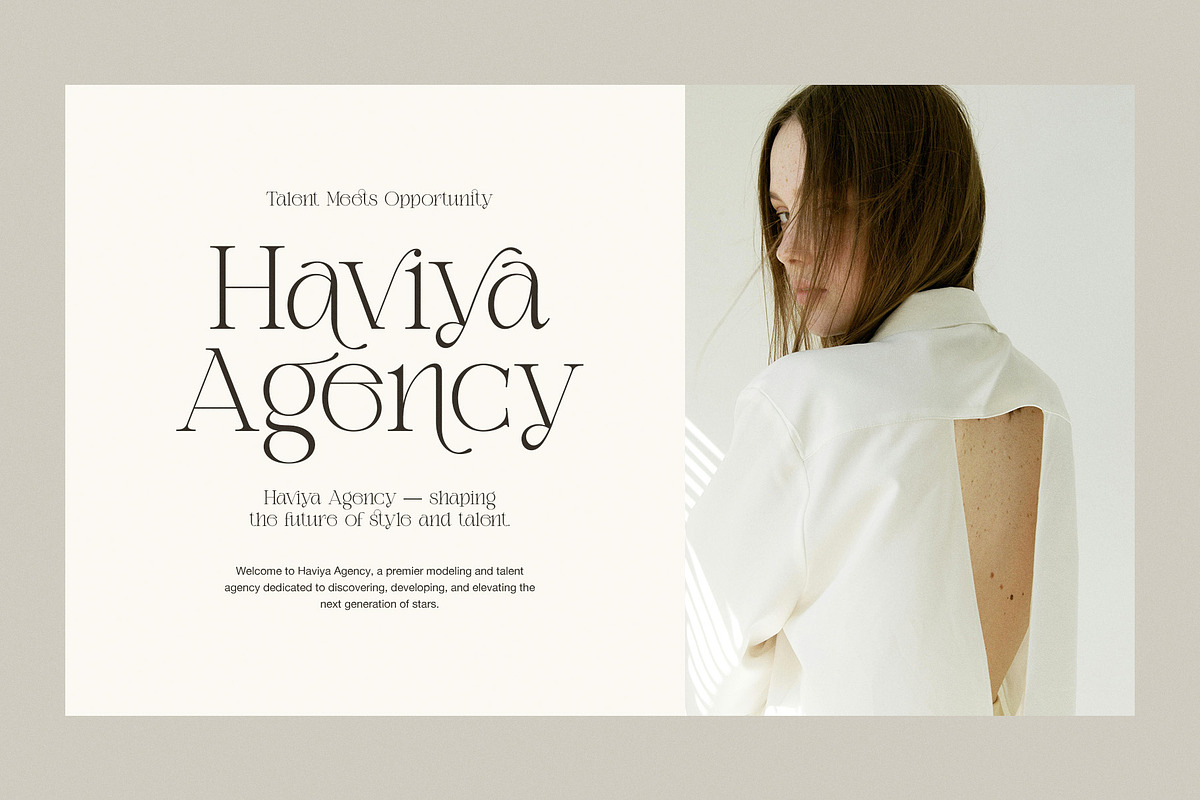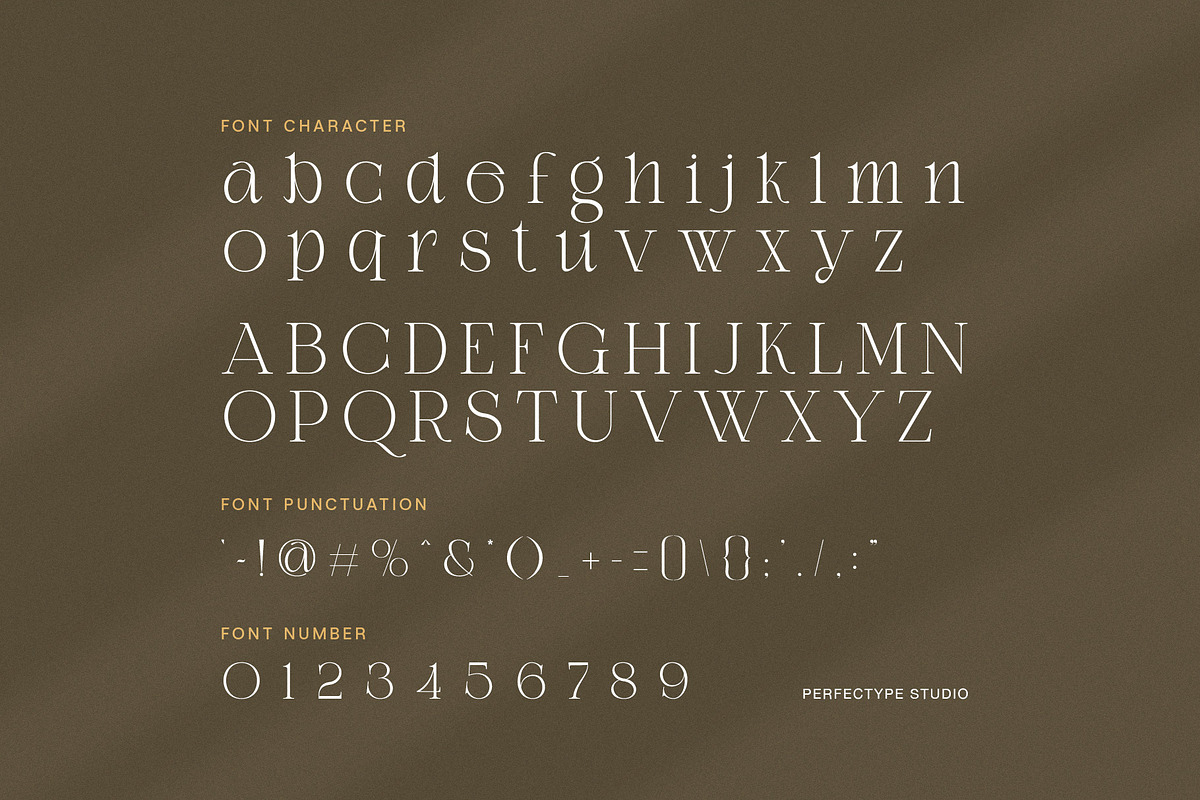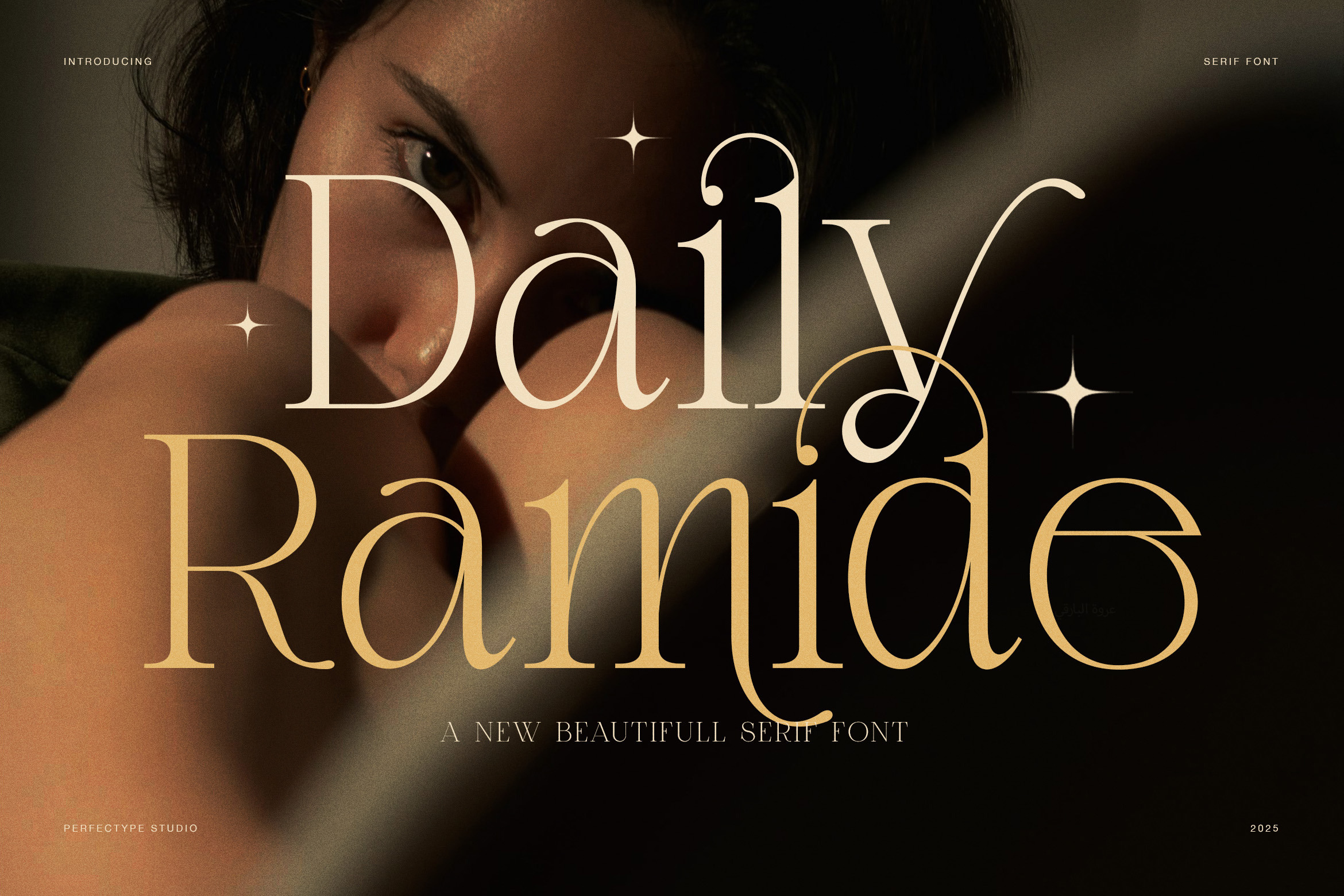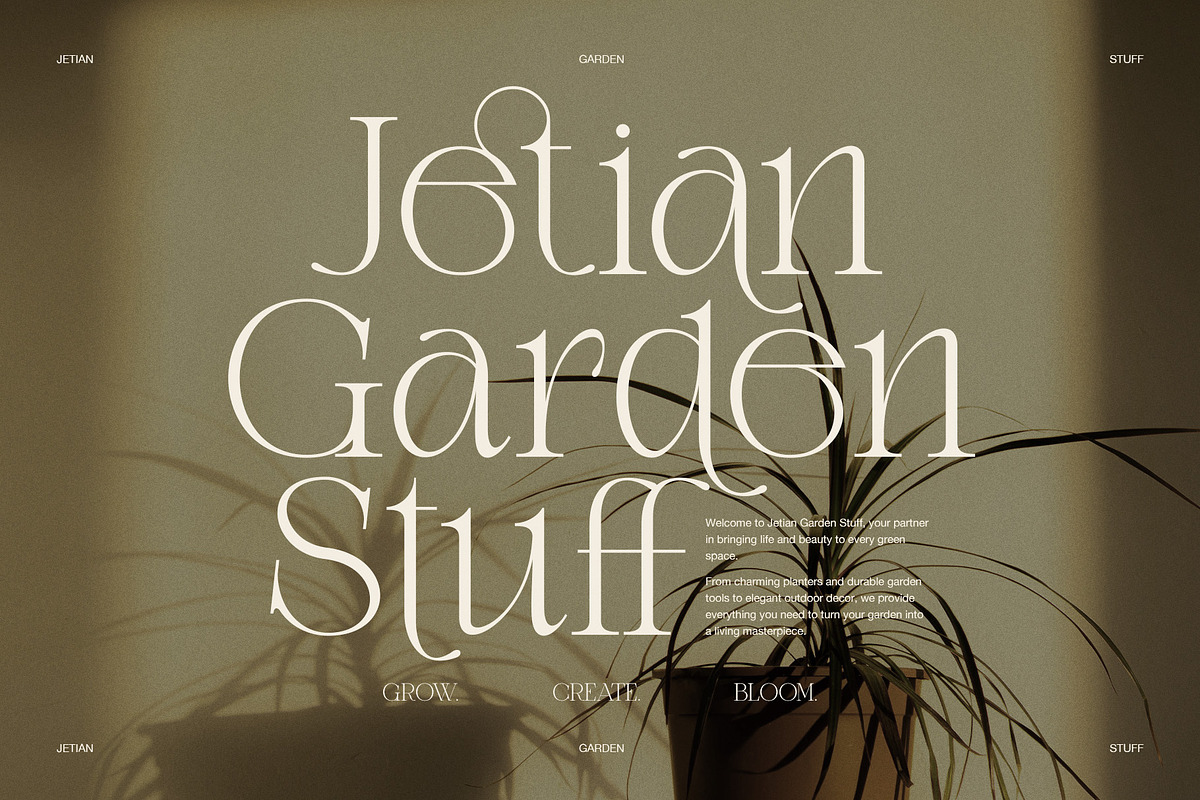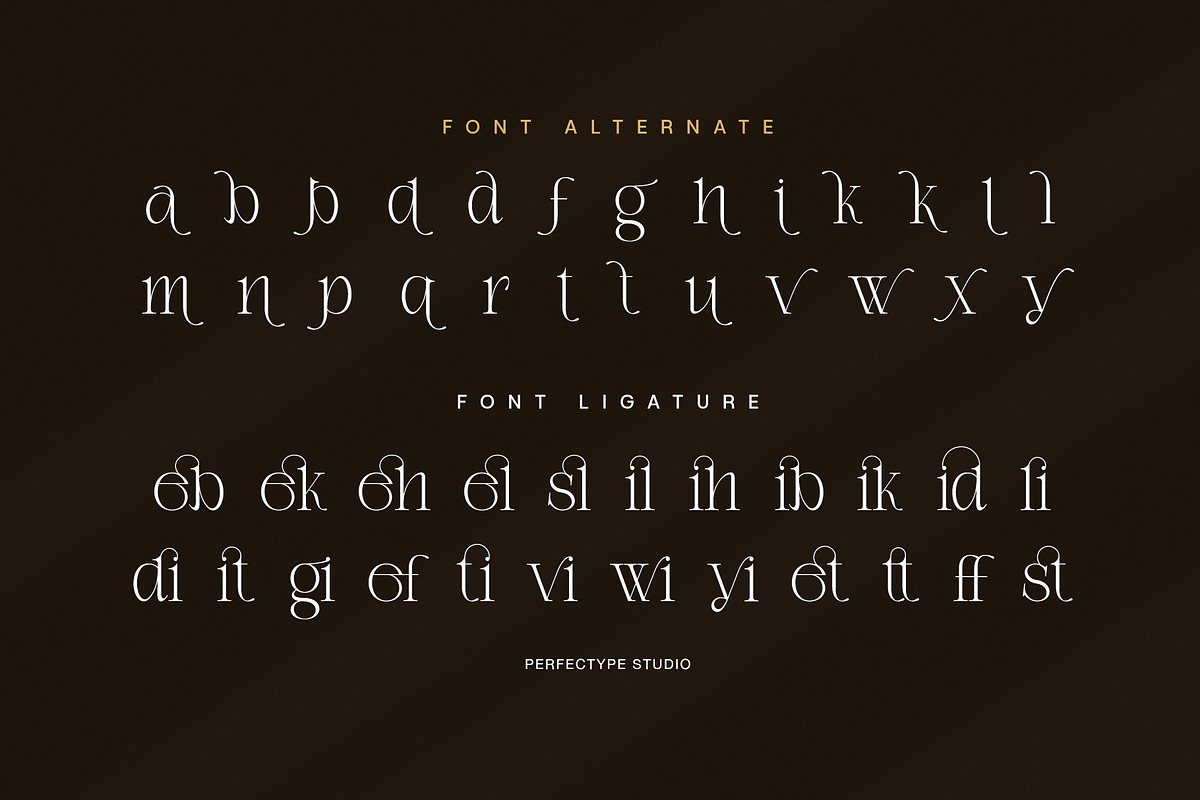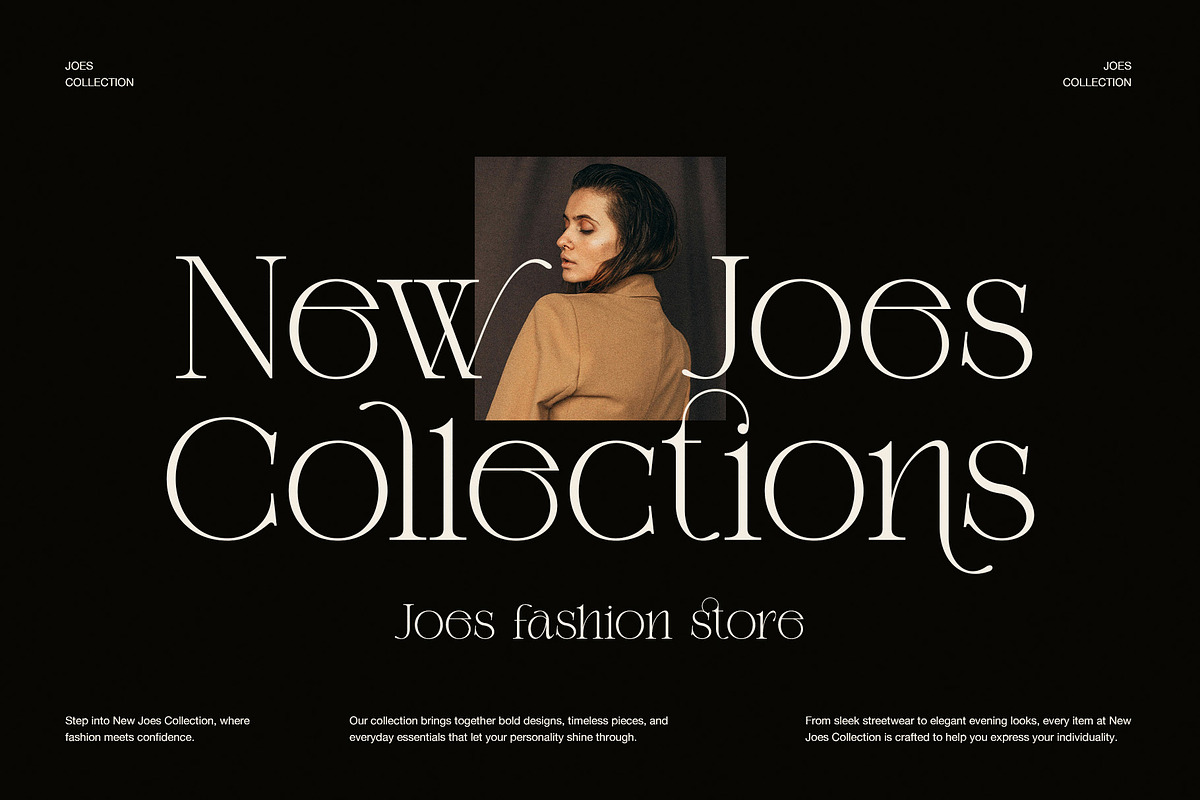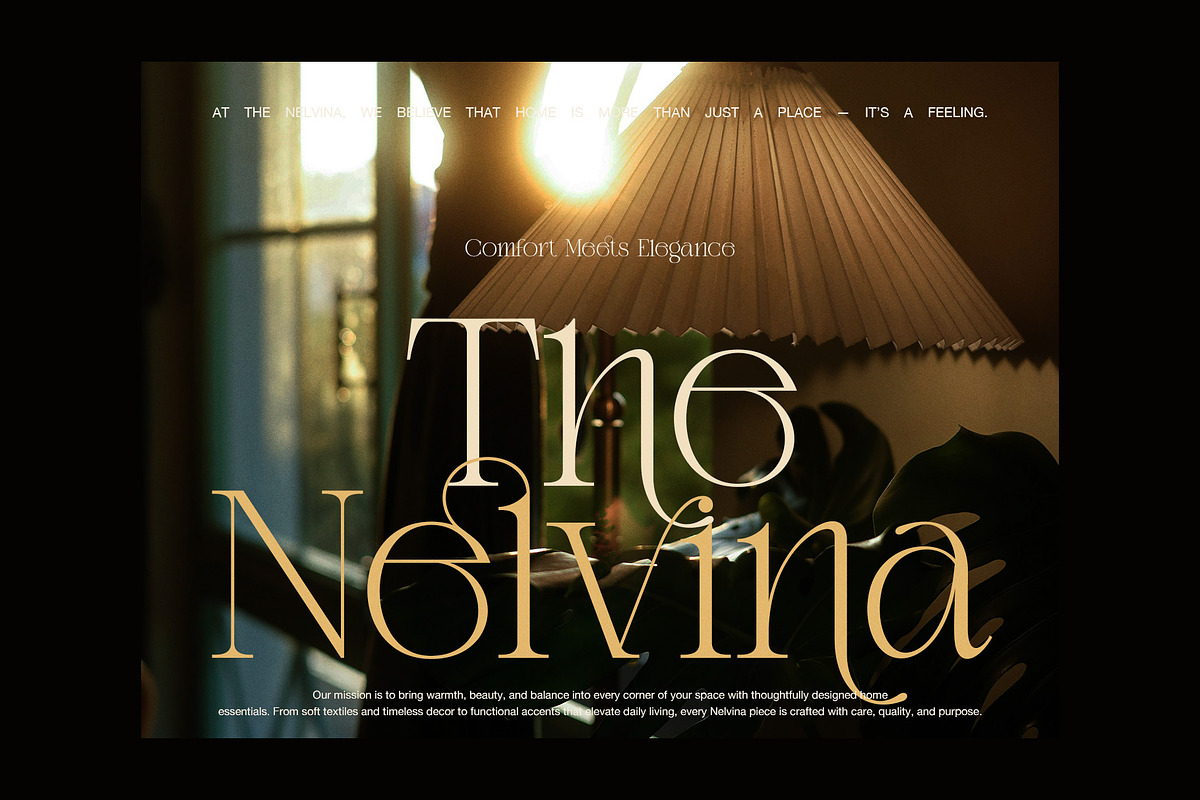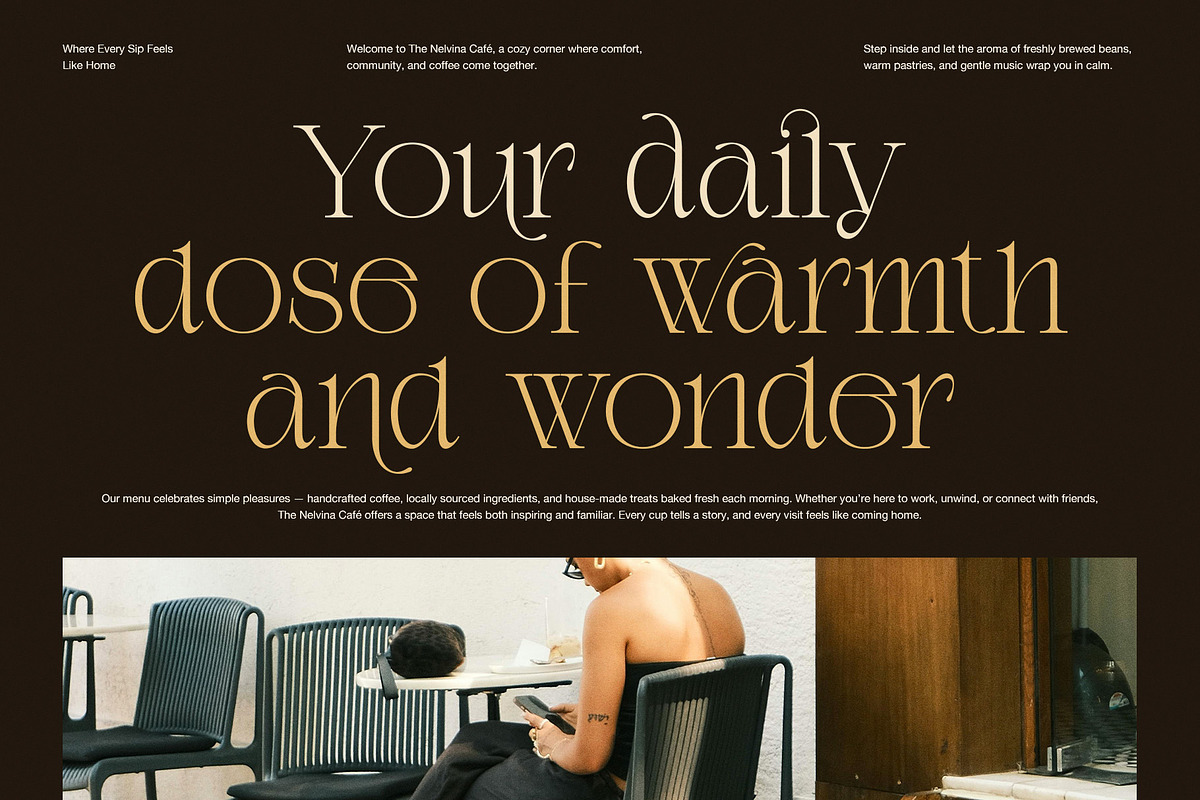
Daily Ramide Serif Font
Daily Ramide is a modern elegant serif font designed to elevate professional design work. From the first impression, this typeface delivers clarity, balance, and refined style. It combines clean structure with subtle contrast, so every letter feels confident and polished.
Moreover, Daily Ramide performs well across many design formats. Designers can use it for branding, editorial layouts, and premium packaging. Because the letterforms stay clear and consistent, the font remains easy to read at both large and small sizes. At the same time, its elegant details add visual interest without overwhelming the layout.
In addition, Daily Ramide adapts easily to different creative needs. It fits logos, magazines, fashion branding, websites, and social media graphics. Thanks to its modern proportions, it supports minimalist designs. However, it also enhances classic and luxury concepts when designers need a timeless tone.
Furthermore, Daily Ramide helps designers work efficiently. The font includes uppercase and lowercase letters, numbers, punctuation, and multilingual accents. As a result, you can create cohesive layouts without switching typefaces. The spacing feels natural, while the rhythm of the text stays smooth and professional.
Daily Ramide speaks to designers who value control and elegance. It supports daily creative work while maintaining a premium appearance. Therefore, it works well for both commercial branding and personal projects. Each character reflects careful design choices that keep your typography strong and reliable.
✨ Why Choose Daily Ramide Serif Font?
Modern and elegant serif style
Clean letterforms with balanced contrast
Strong readability for print and digital use
Ideal for branding, editorial, and packaging
Perfect for logos, headlines, and body text
Smooth spacing and professional structure
Timeless design with a contemporary feel
Overall, Daily Ramide offers more than visual beauty. It gives designers a dependable serif font that enhances clarity and style. If you need a modern elegant serif font that performs consistently across platforms, Daily Ramide delivers results with confidence.